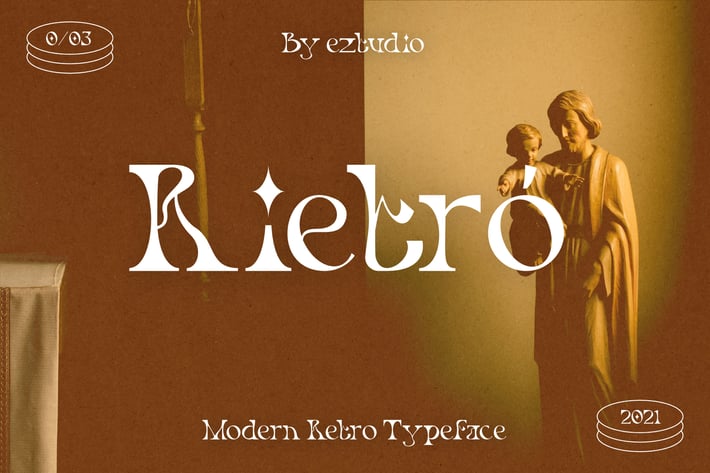
Modern Retro Font - Rietro
Rietro is fonts includes uppercase letters, lowercase letters, numerals, a large range of punctuation. Retro font with modern style and classic look. Created for poster, web design, branding, illustrations, badges and some other works.